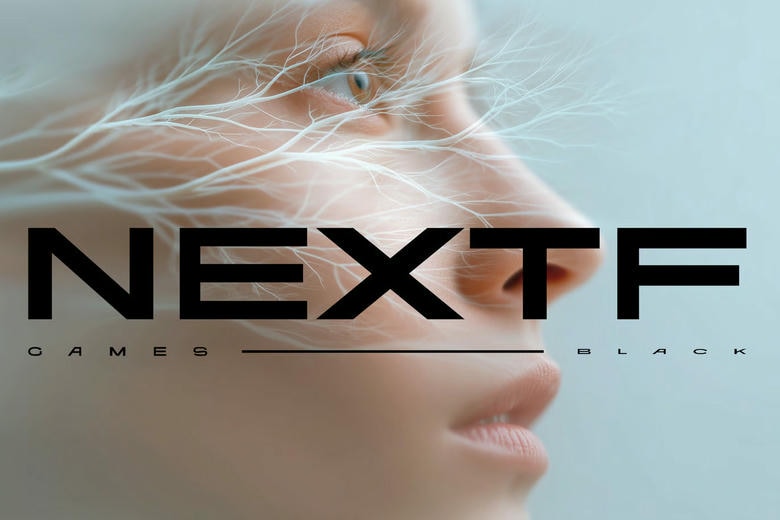
Nextf Games Black Font
Nextf Games Black Font removes all decorative details and focuses on a very neutral style. This gives the font an unbiased, authoritative look. The design keeps the letter shapes simple so you do not notice their curves.
Nextf Games Black Sans Serif Font